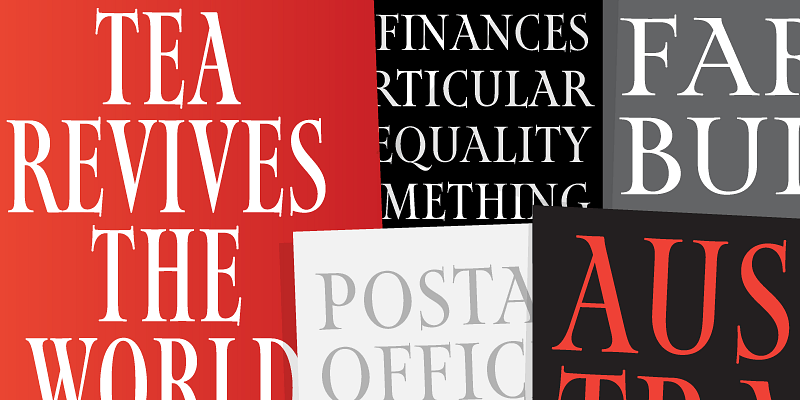
Map Roman Font Free Download is a traditional serif typeface with a refined, classical design. Known for its legibility and elegant structure, this font is perfect for high-end branding, editorial design, book covers, and any project requiring a sophisticated, timeless style.
With its clean lines and well-balanced proportions, Map Roman excels in both display and body text, providing a versatile solution for a variety of design needs. It seamlessly integrates with popular design tools like Adobe Illustrator, Photoshop, Figma, and Canva, making it a great option for both print and digital projects.